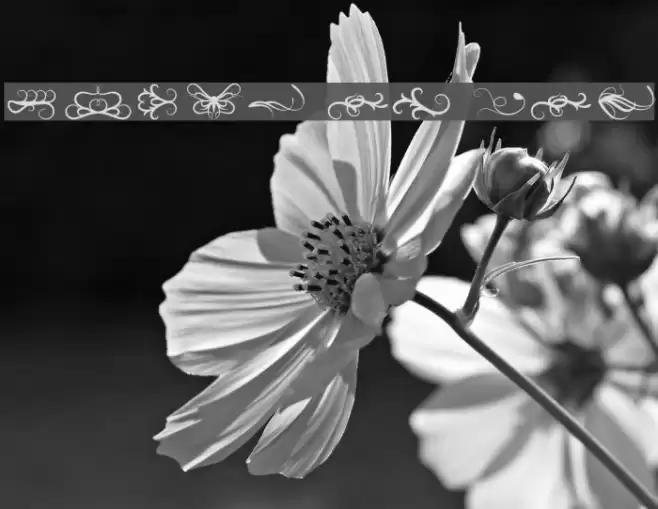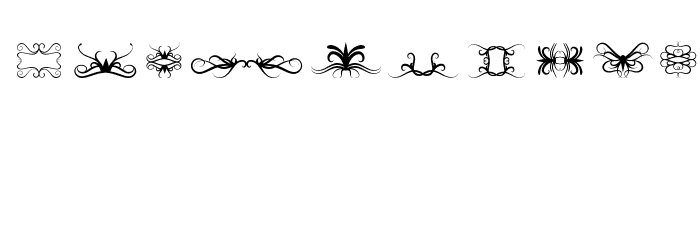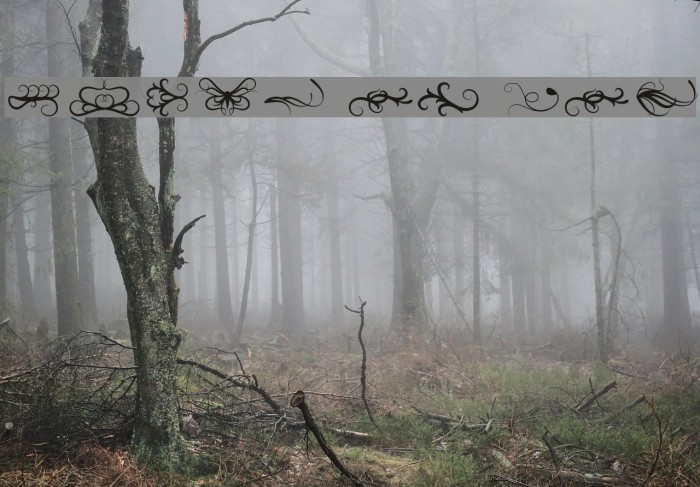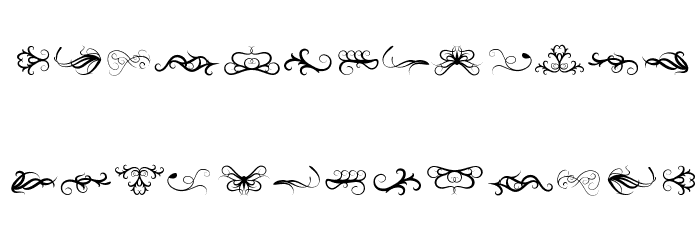
Tears Of Joy Font
Tears Of Joy Description
An ornamental decorative font composed entirely of intricate flourishes, swashes, and filigree motifs, with each character represented by a unique, highly stylized embellishment rather than traditional letterforms or numerals.
Highly decorative font featuring ornate flourishes and embellishments from Dingbats fonts.
- Proposed Projects: Wedding invitations, certificates, decorative borders, vintage-themed designs, scrapbooking, and ornamental dividers.
- Overall Style: Decorative, Ornamental, Vintage
- Use Case: Borders, Dividers, Decorative accents